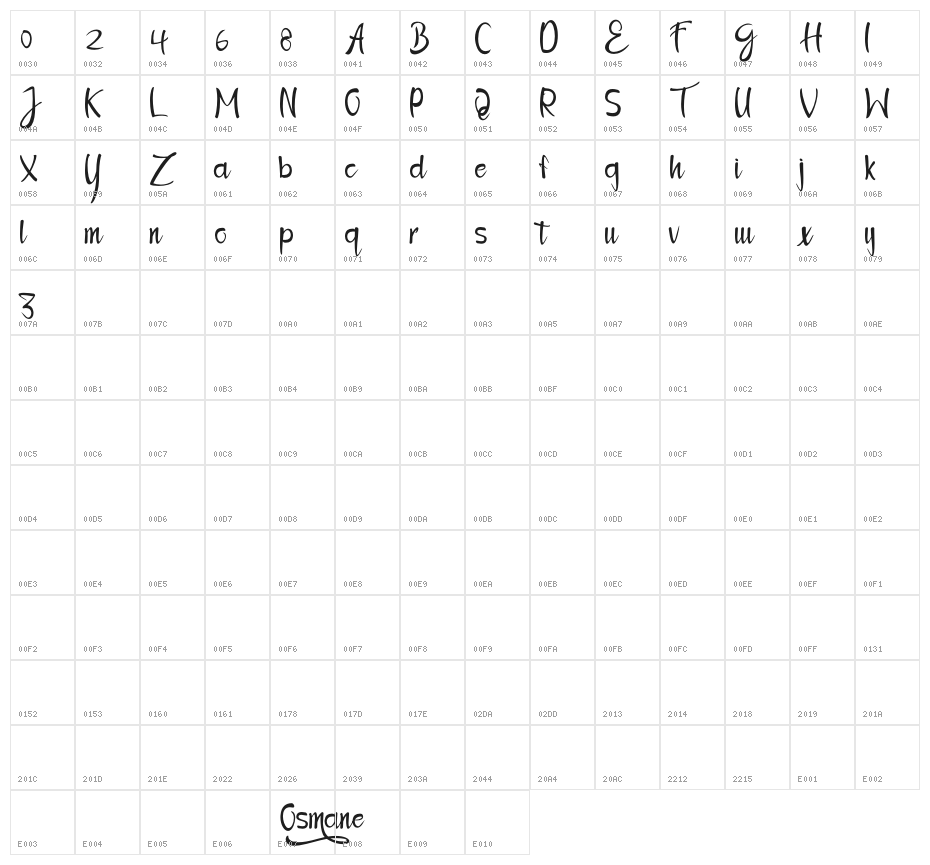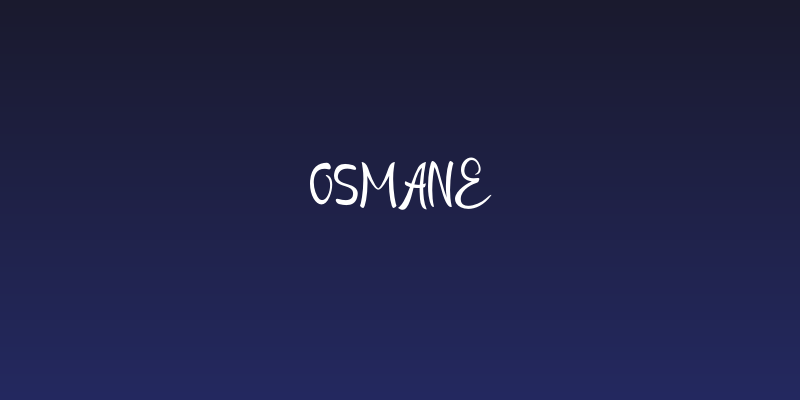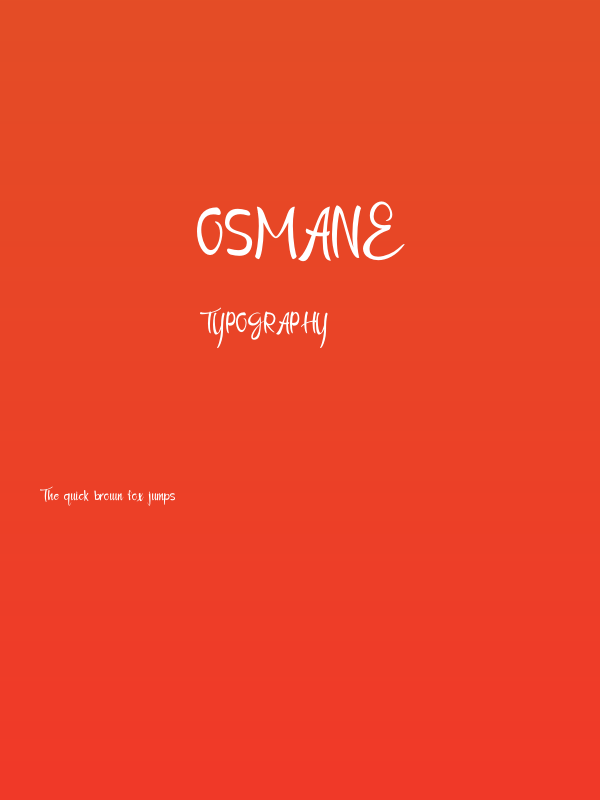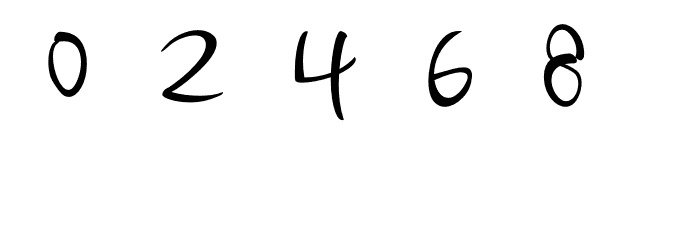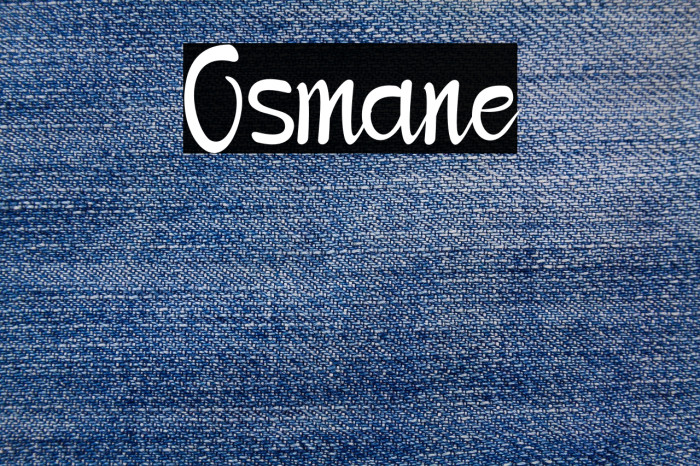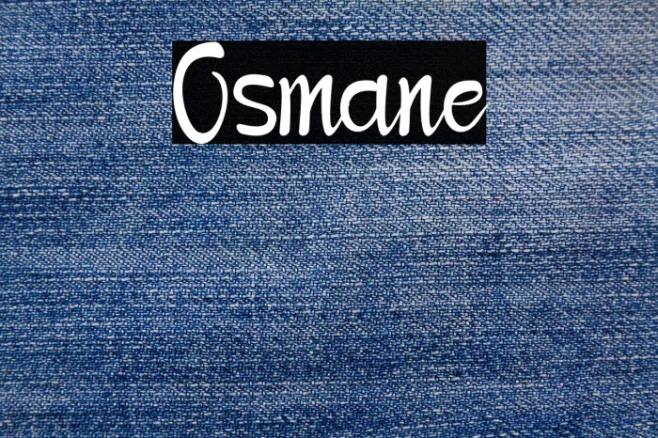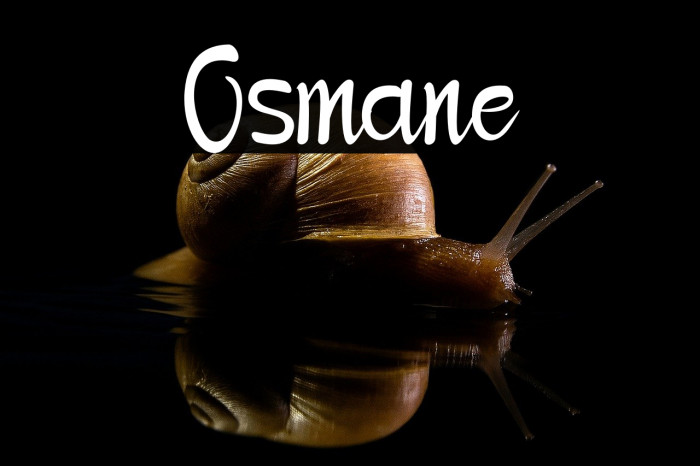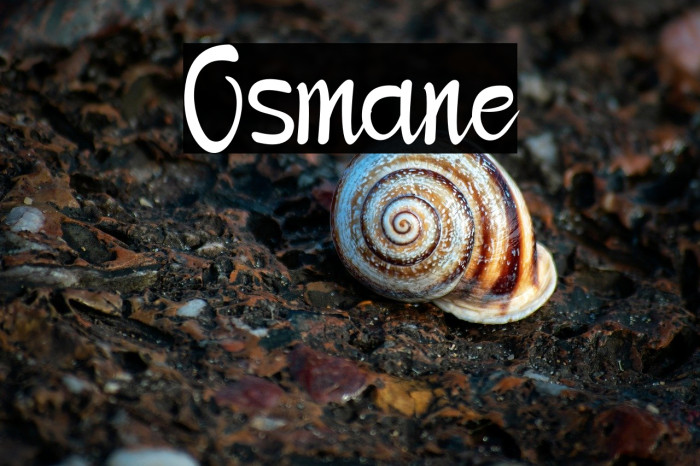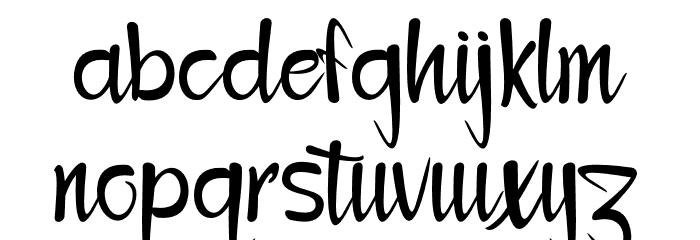
Osmane Font
Osmane Description
This font features a dynamic and expressive style with a handwritten appearance. The letters are fluid and slightly slanted, giving a sense of movement and energy. The uppercase characters are bold and prominent, while the lowercase letters maintain a consistent flow. The numbers are uniquely styled to match the overall aesthetic, with curved lines and varying stroke widths. This font is ideal for projects that require a personal touch, such as invitations, greeting cards, or creative branding. Its artistic flair makes it stand out in any design.
| Proposed Projects | Ideal for invitations, greeting cards, creative branding, and artistic projects. |